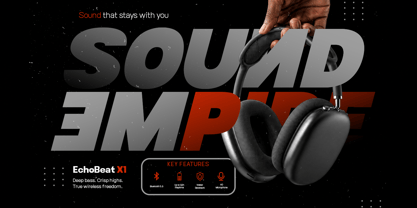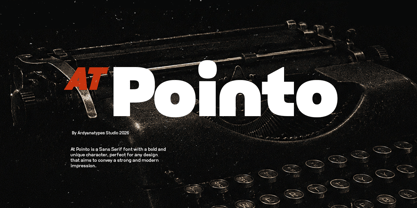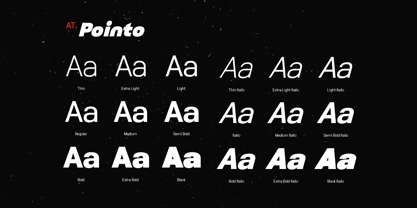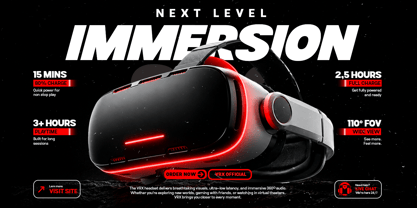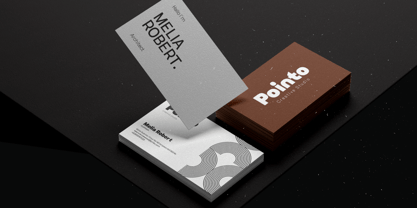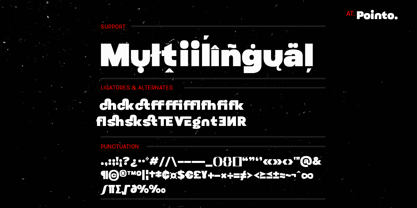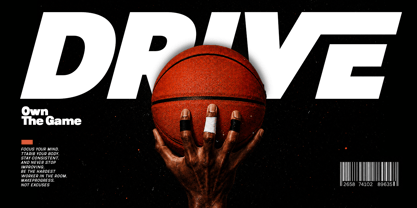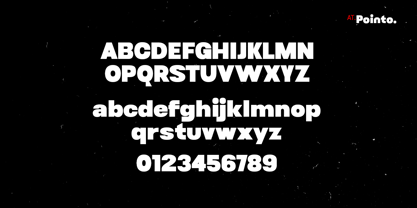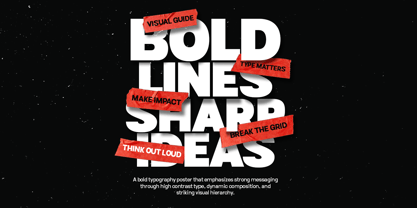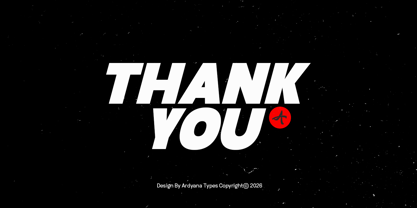
AT Pointo
La familia tipográfica AT Pointo fue diseñada por Ardyana Putra y publicada por Ardyanatypes. AT Pointo contiene 18 estilos y opciones de paquete familiar. Más información sobre esta familia
AT.Pointo is a modern sans serif family designed to deliver strong visual impact with a clean, confident, and energetic personality. Built with bold proportions, dynamic italics, and modern geometric structure, this typeface is crafted for designers who want their work to feel powerful, contemporary, and instantly attention-grabbing.
With 18 versatile styles ranging from Thin to Black, including matching italics, AT.Pointo offers the flexibility to create everything from sleek minimal layouts to aggressive high-impact headlines. The italic styles are specially designed to create movement and momentum, making them perfect for sports branding, technology campaigns, futuristic visuals, and modern advertising.